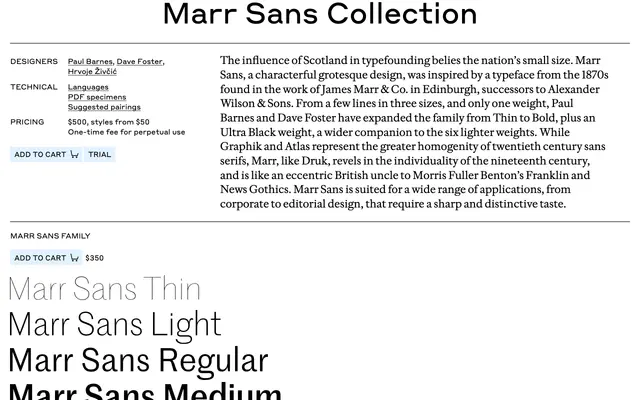
Marr Sans
Commercial Type · Paul Barnes, Dave Foster
A characterful nineteenth-century Scottish grotesque revived and expanded by Paul Barnes and Dave Foster, with standard and Condensed widths.
A grotesque sans serif designed by Paul Barnes and Dave Foster from an 1870s Scottish typeface by James Marr & Co. of Edinburgh, the successors to Alexander Wilson & Sons. Marr Sans expands a handful of original sizes in a single weight into a system running from Thin to Bold with matching italics, plus a wider Ultra Black, and a Condensed cut at the same weights. Where Graphik and Atlas read as twentieth-century neutrals, Marr revels in nineteenth-century individuality and reads as a sharper, more British cousin to Franklin and News Gothic. Suits identity, editorial and packaging that wants distinction without theatre.
Commercial Type describe Marr Sans as a characterful grotesque inspired by an 1870s typeface from James Marr & Co. of Edinburgh, expanded by Paul Barnes and Dave Foster from Thin to Bold plus an Ultra Black, with a Condensed companion.